5 Rules: The Science of Choosing a Font
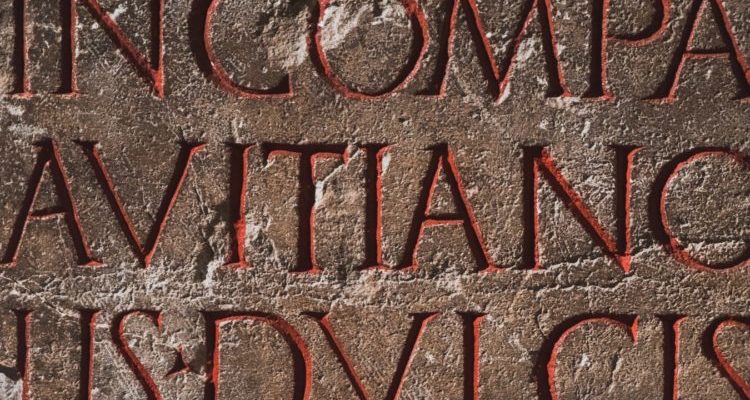
When designers make font choices it is usually a very arbitrary decision with only one aspect taken into consideration. The question asked is: will the design be used online or for print purposes?
Since the majority of designers make use of two main font types (serif and sans serif with the difference between the fonts being: the serif has slight tails at the top and bottom of each character, while the sans serif is sleeker) a clear distinction has been made where designers prefer using serif in print and sans serif online.
However, there is no scientific basis for this selection, for research actually suggests that serif fonts like Times New Roman (made specifically for print use) are more easily read or scanned online. So if the implementation of font types online and offline is suggestively erroneous, shouldn’t designers give more thought to the font personalities when deciding to make use of them in their designs?
There is an obvious psychology attached to font choices and if we segment these choices, we can highlight gender, age and personality preferences using the results to create a more effective design campaign. The question designers may now ask is what font do men prefer and/or what font do women prefer?
This question is an oversimplification of a very complex subject. Font preferences vary according to age, and culture and even personality; to classify a font as ‘feminine’ or ‘masculine’ seems sexist in a way. So how do you make the art of choosing a font type more specific?
This article has been inspired by The Psychology of Fonts a study by Aric Sigmanand a book by Simon Garfield titled Just My Type, which gives fonts different personality traits. The psychology factor comes into play when Garfield claims that Comic Sans is for attention seekers (the more annoying ones), while Shelly represents fun loving and flirty personalities. Courier is for data crunchers and librarians, while Univers gives those seeking anonymity something to feel less insecure about. Crazy right?
Rule 1: Choose between serif or sans serif
A study of serif and sans serif fonts suggested that different fonts arouse a plethora of reactions in the reader. Apparently the font Times New Roman, is more amphibious in nature and changes its personality with the content being displayed. If the same humorous article is presented to readers in Times New Roman and Arial, more people connect ‘humor’ with the article written in Times New Roman. Though a font with no personality, it may prove to be an effective choice if the focus is more on what is being written as compared to the visual display of imagery. This dispels the preconceived notion designers have that Times is a dispirited font that should be avoided.
Another study presented in Scientific American suggests that readers are better able to scan the text when it is in serif fonts. The study also associated better comprehension with these serif fonts especially if displayed in an uncommon font size. The unscientific reasoning behind this could be that readers are forced to move out of their comfort zone and focus on something new, thus making the text content more memorable.
Choosing from the more geometric sans fonts like Helvetica and Gotham could mean the difference between choosing modernity and clarity (brain vs. brawn). They may look good but are not necessarily comfortable to read. Yet, considering the trend of minimalist design geometric sans fonts may be more appropriate than the humanist sans choices that are more detailed and a pale reflection of their sleeker counterparts. Verdana seems to be a corporate replica of its geometric counterpart, the Helvetica while the Gill Sans has been the butt of many a joke with the top one being:
Q: How do you do British post-war design?
A: Set it in Gill Sans and print it in British Racing Green.
Fonts like the infamous Comic Sans look deceivingly informal to clients outside the design industry, but readers actually perceive that as immaturity or insecurity-not the best basis of selling a business product or concept. Serif fonts are more conservative and appeal to the business corporations and solicitors, though Arial is considered more contemporary like the Helvetica, while Courier usually represents automation or discord…it is the font of preference for resignation letters!
Rule 2: Choose the usual or unusual font
It has been proposed that using usual fonts like Arial clarifies the readers mind allowing them to take more action (aka. more sales) while clustery font like Scriptina can cause confusion and less action (hence no sales). This makes sense and that is why we see most websites using similar fonts. However, going by the previous notion of muscle memory those websites that use unusual font types stand out-for better or for worse. If it is for the better, then the readers ‘unused’ font memory is forced out of sync and the site becomes memorable and thus, effective. If it is for the worse-then the website stands out for less inspiring reasons.
So whatever the choice, make the decision carefully. Transitional and modern styles of font are sharp and edgy but Baskerville, a prototypical transitional font is sharp but can’t be used to read long portions of text. It would work well as a headline feature alone.
Bottom Line
Psychologist Aric Sigman who did a study of the Psychology of Fonts wrote: “ Using the wrong font may give people the wrong impression about you and could affect decisions that will shape your future. ” Keep in mind then, that the typeface chosen to represent the business in terms of design will prove to be a significant factor of influence. Choose wisely for your choice will create lasting impressions on the reader.